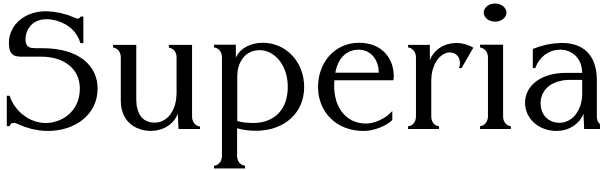
Superia
Superia's fashionable and decorative design finds its origin in art deco and art nouveau typefaces though it is a modern typeface which provides fine legibility. Superia is designed in four styles from Regular to Black. Use this versatile font on...